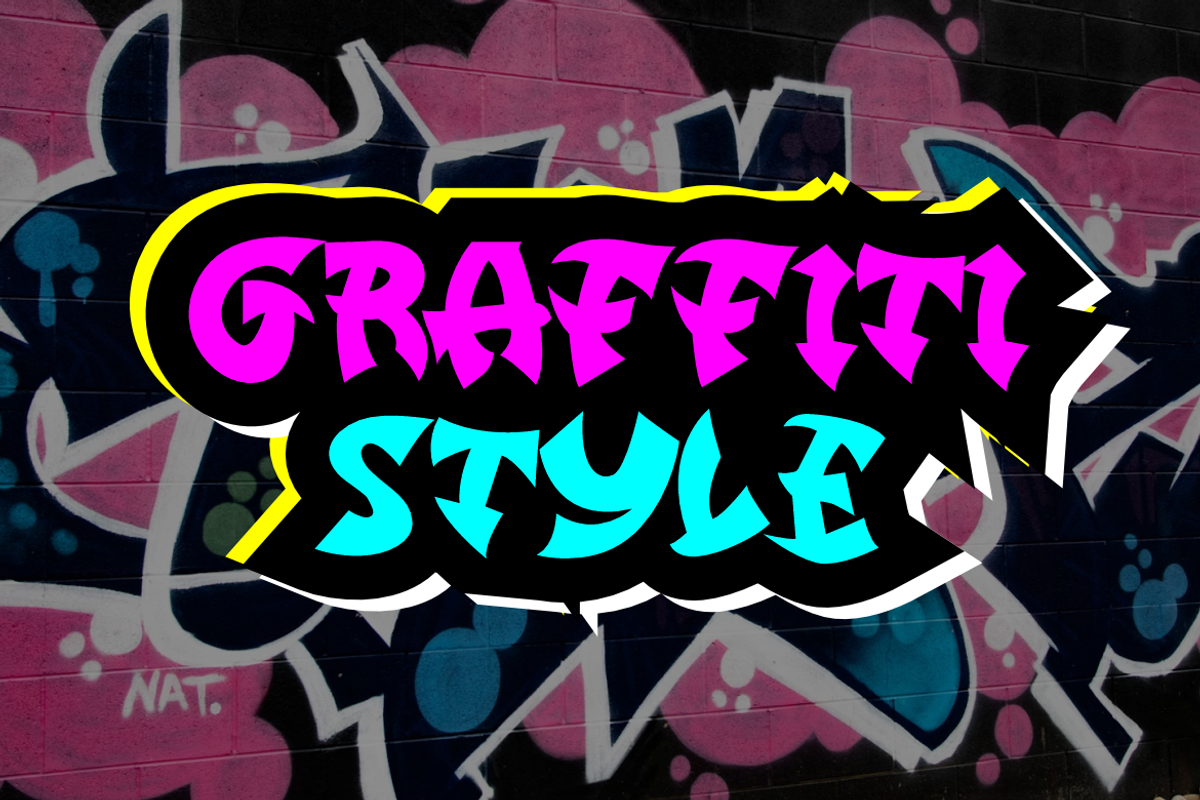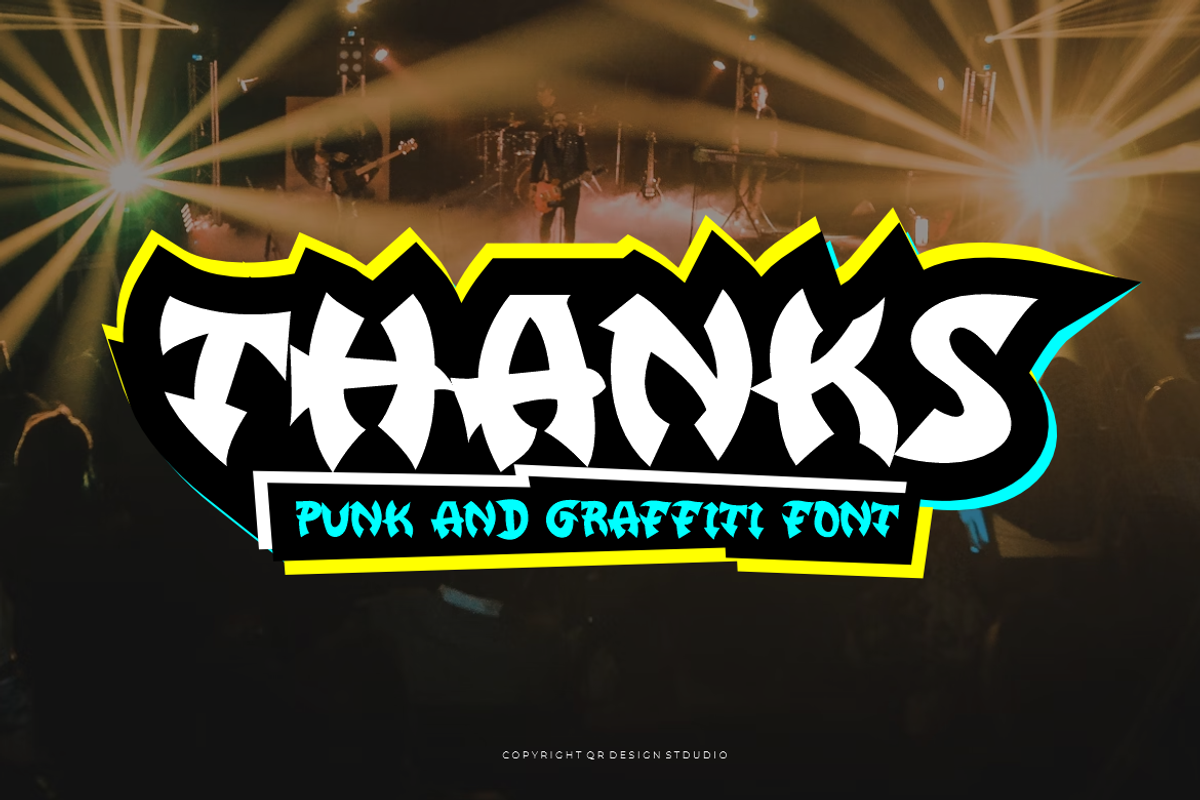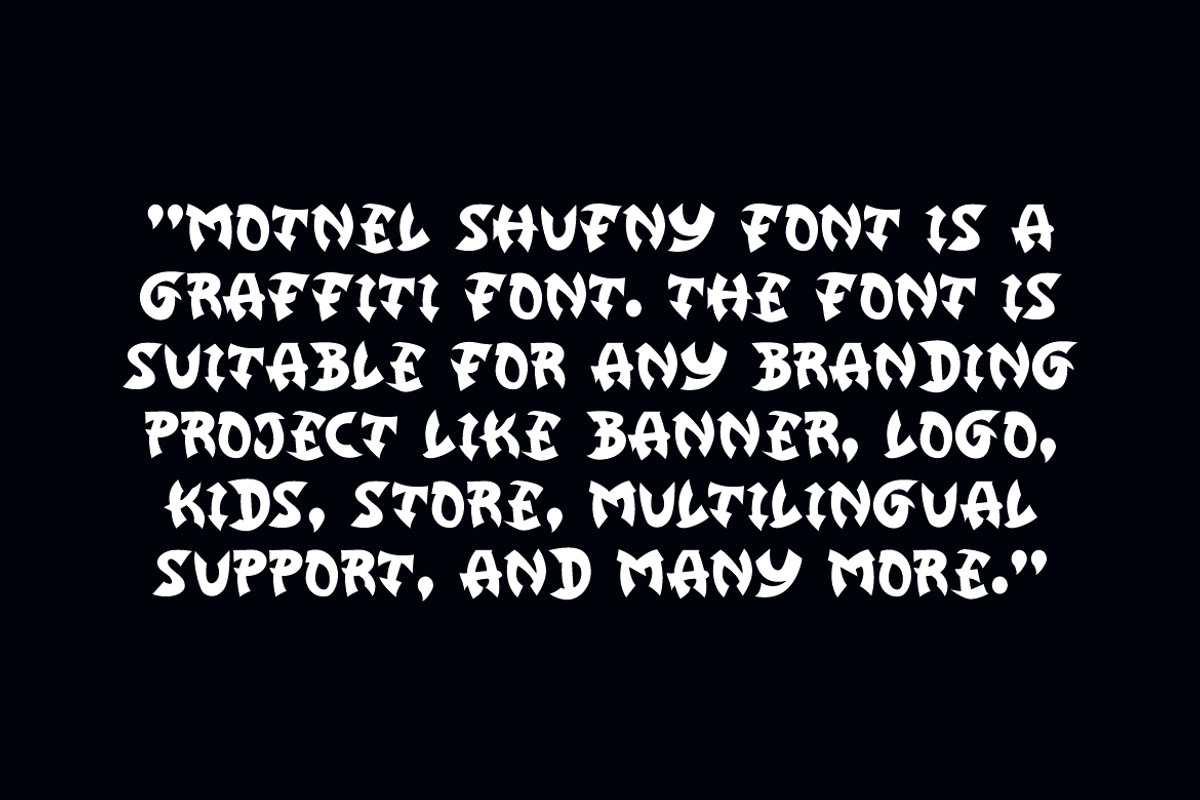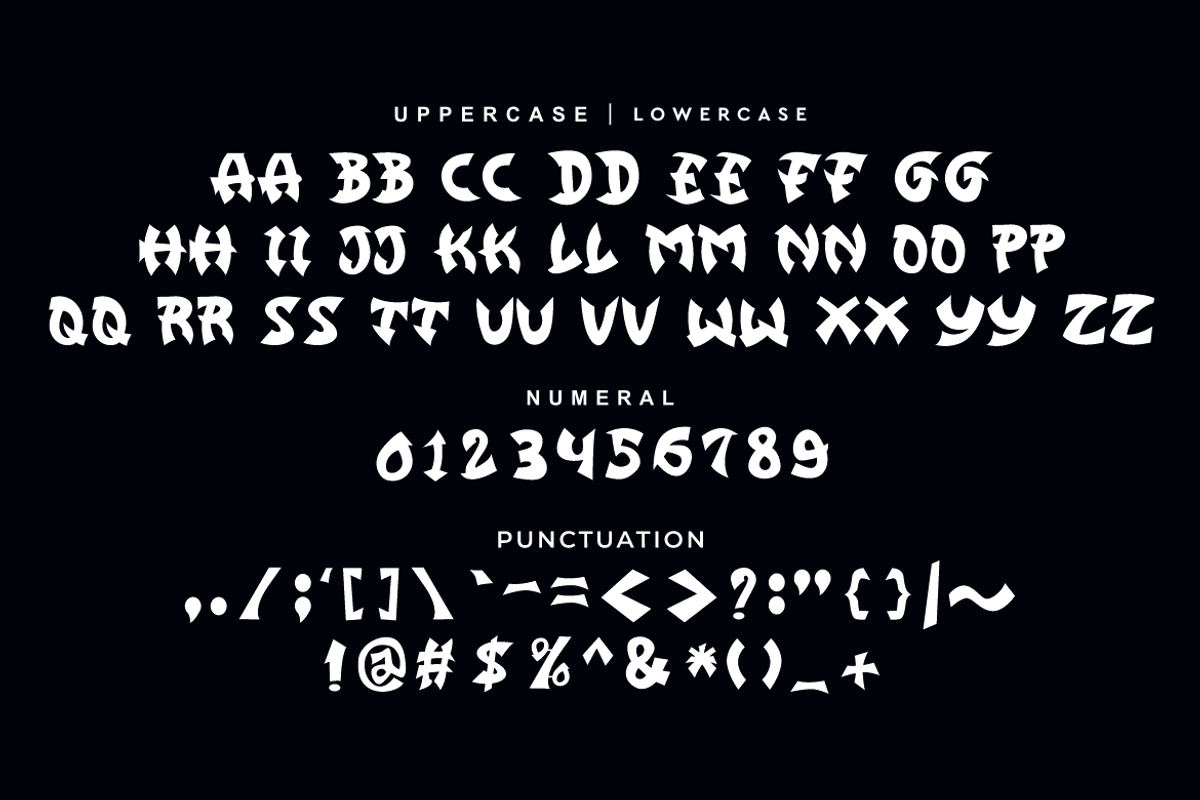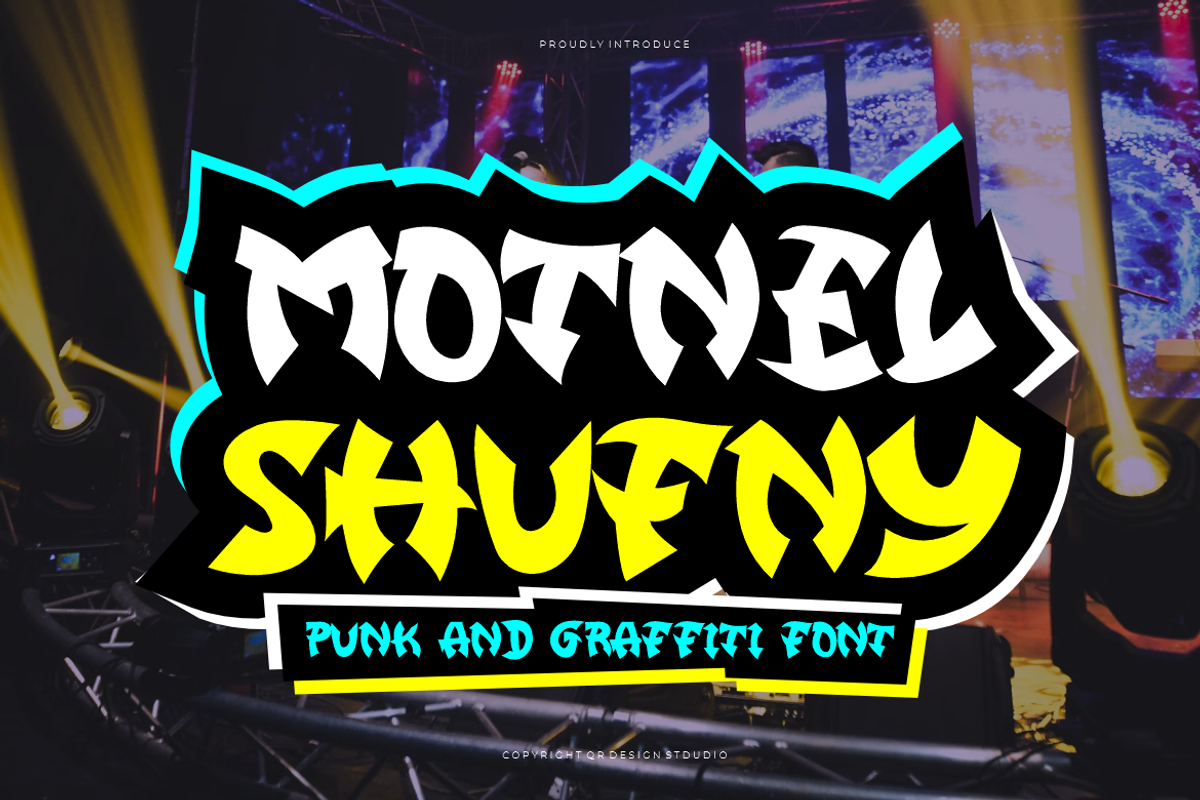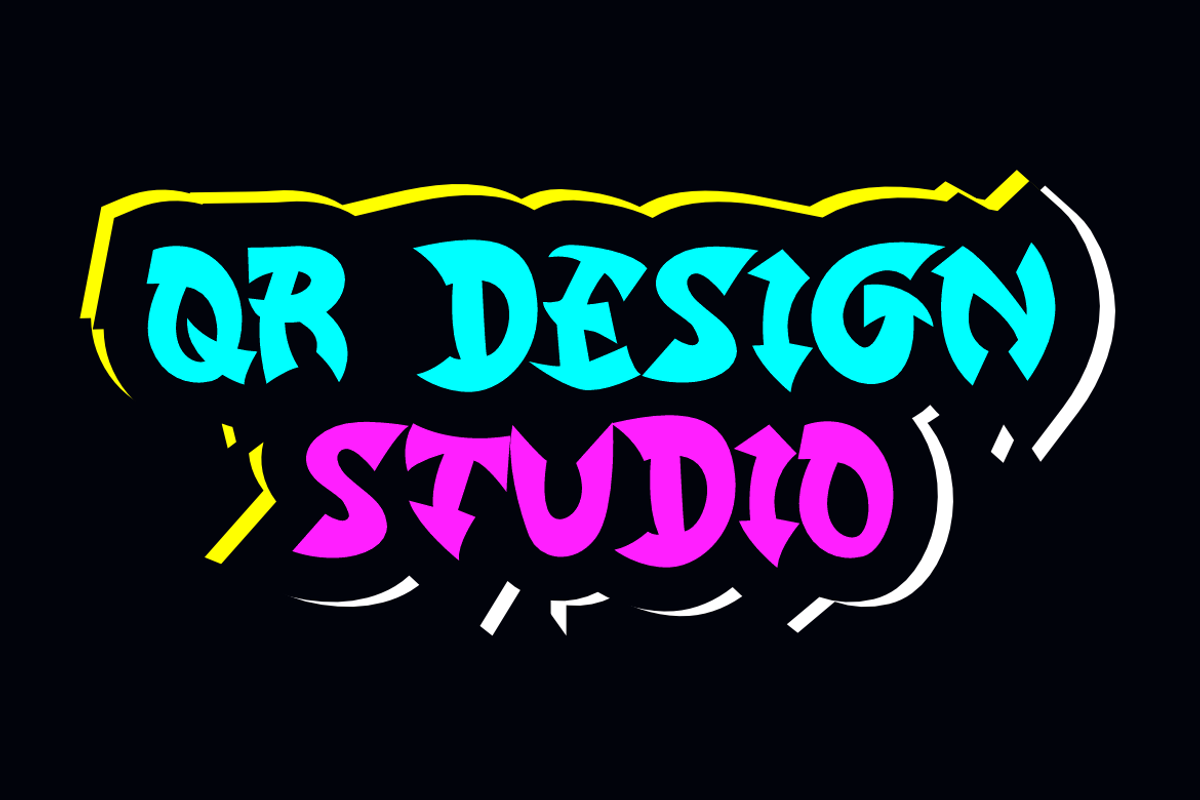
Motnel Shufny - Graffiti & Punk Font
Motnel Shufny Font is a bold and authentic display font. The font is suitable for any branding project like poster, logo, sport, and many more. Outstanding in a wide range of contexts.